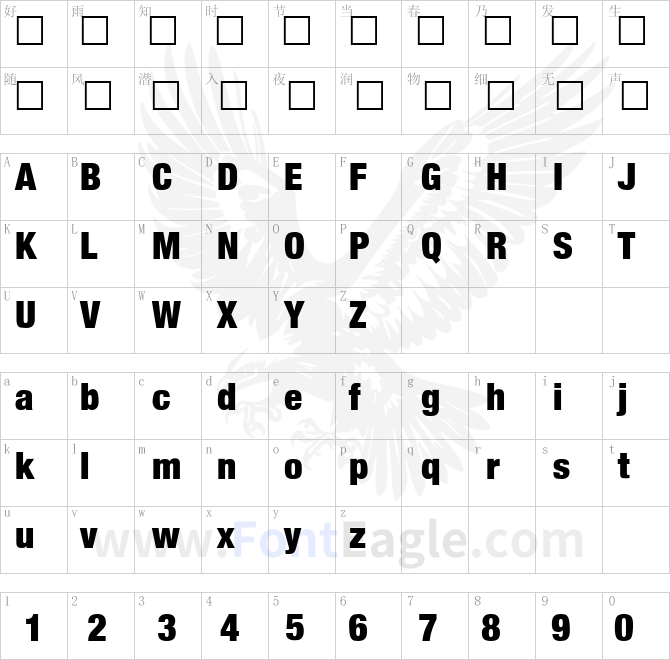
- Font name:Basic Sans Heavy SF
- Font Subfamily ID:Altsys Fontographer 3.5 SansCondLH Bold
- Font Full Name:Basic Sans Heavy SF Bold
- Font Version:Altsys Fontographer 3.5 8/6/92
- Postscript:BasicSansHeavySF-Bold